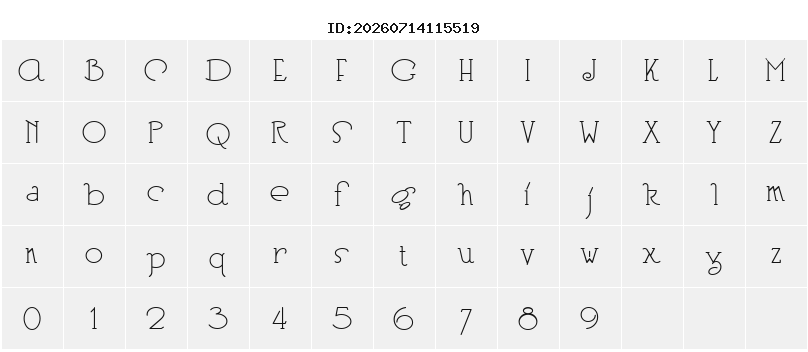
• Font Name: Heberling Casual NF
• Designer: Nick Curtis
About Heberling Casual NF.ttf
Heberling Casual NF.ttf is a modern, elegant sans-serif font designed for ultimate readability and visual harmony. Perfect for branding, headlines, web design, and print materials.